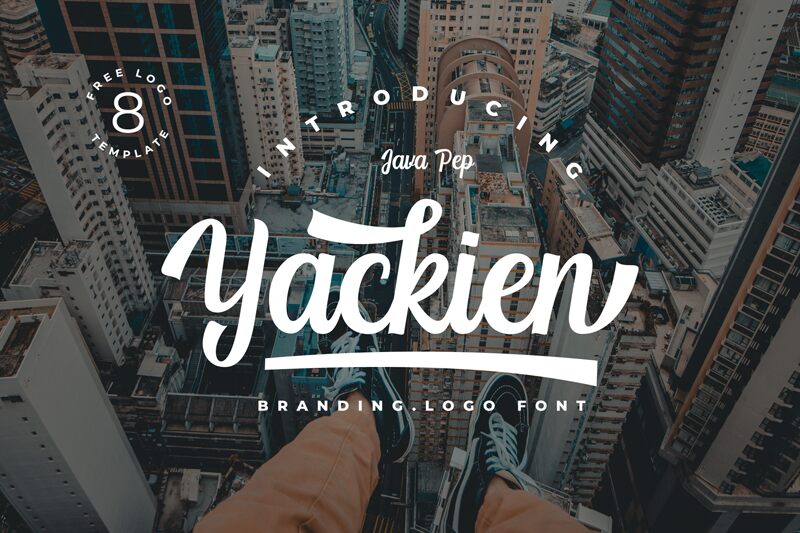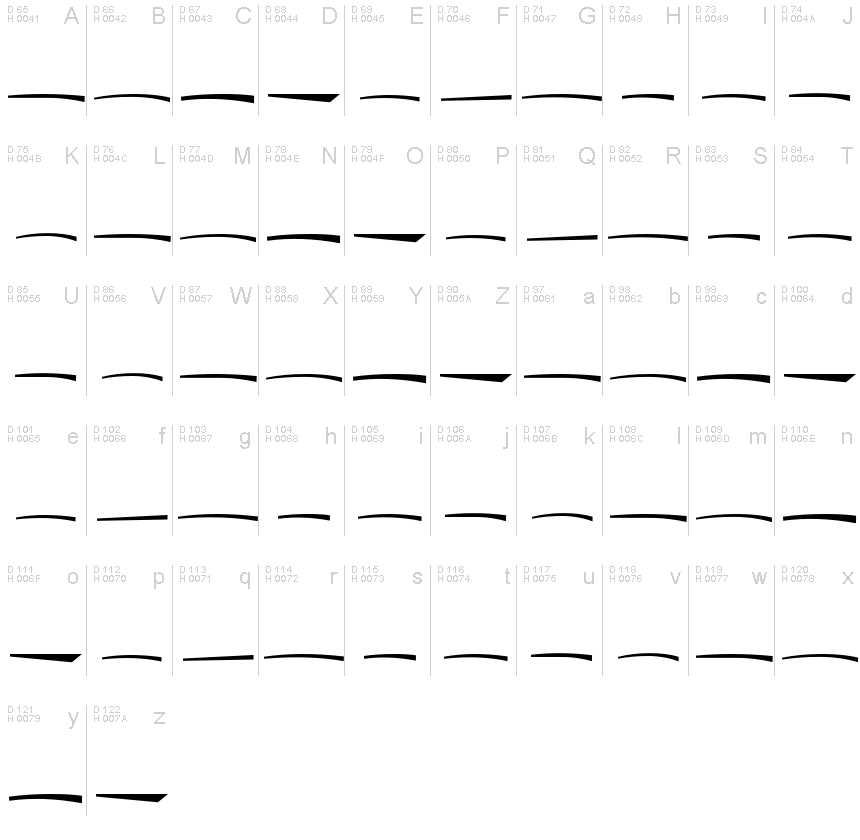
Yackien Swash Demo
Yackien Swash is a captivating dingbats-style font that exudes a sense of elegant movement and flourish. Designed by Java Pep, this expressive typeface showcases a stunning array of swashes and decorative elements, lending an air of sophistication and artistry to any design.
The interplay of bold, sweeping strokes and delicate, intricate details creates a visually striking aesthetic, making Yackien Swash an excellent choice for a wide range of applications, from high-end branding to ornamental typography.
ts versatility allows it to shine in both display and accent roles, effortlessly elevating the visual impact of any project.